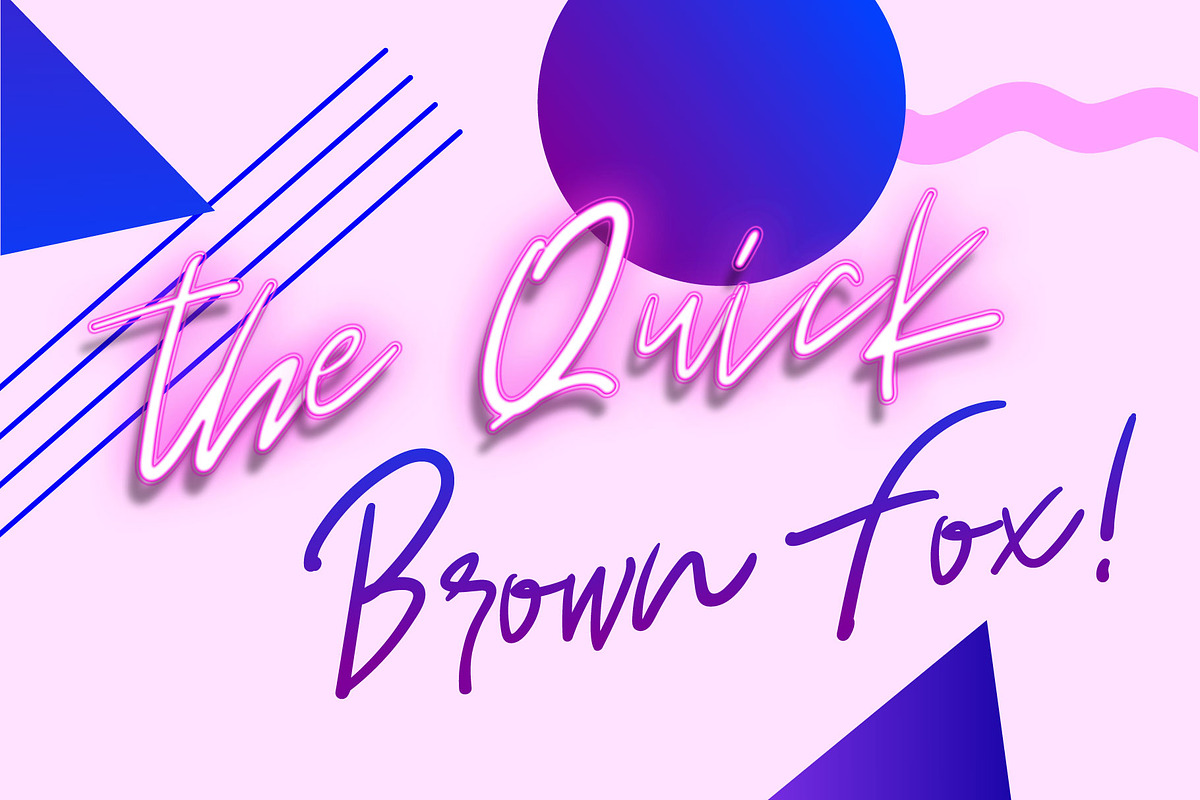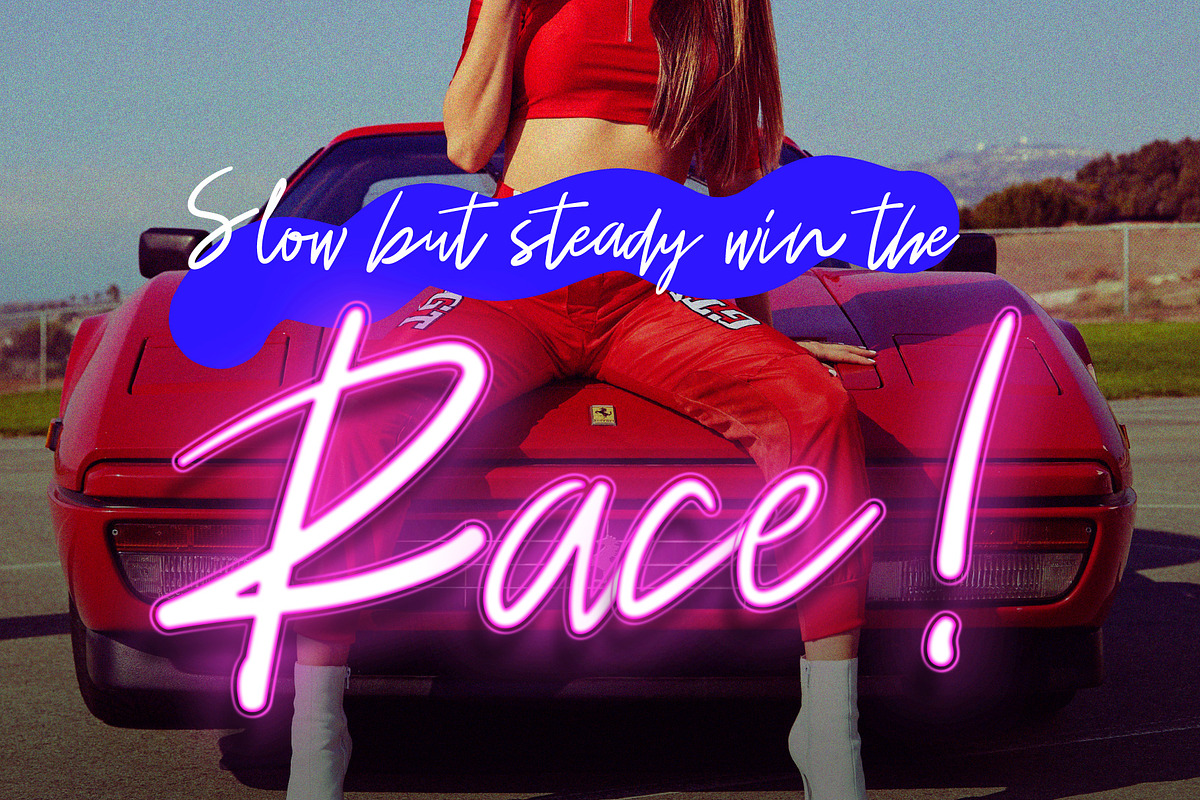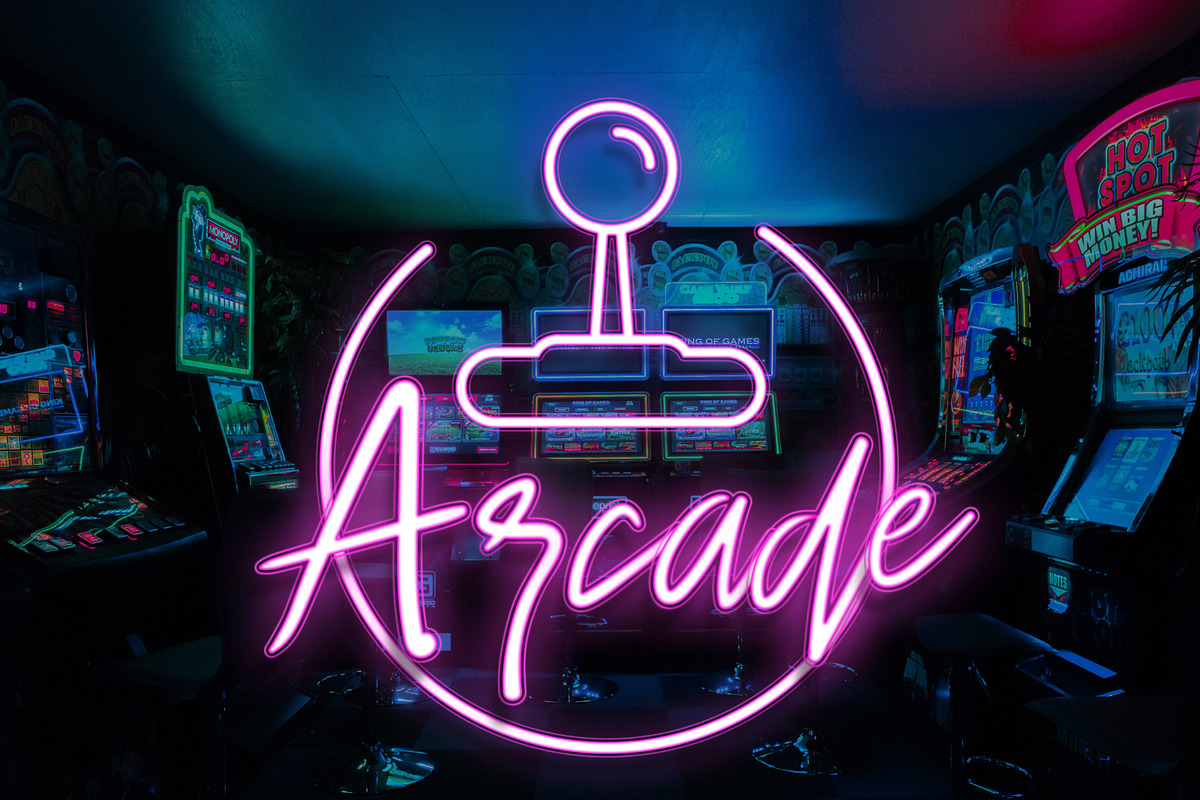
Discoteque Font
Discoteque is a modern art-deco inspired font family that strikes a balance between retro and futuristic aesthetics. It features geometrically straight lines and rhythmic curves, giving it a distinctive and eye-catching appearance.
The font is available in various styles, including regular, bold, and outline versions, offering versatility for different design projects. It’s particularly well-suited for logos, branding, and other graphic design applications where a bold and modern look is desired.